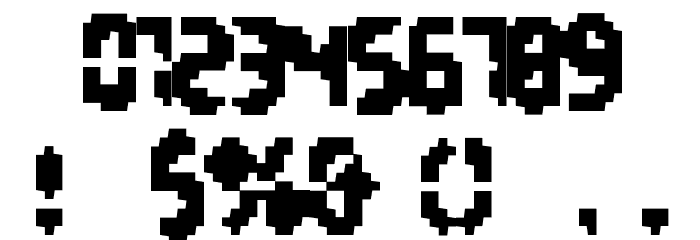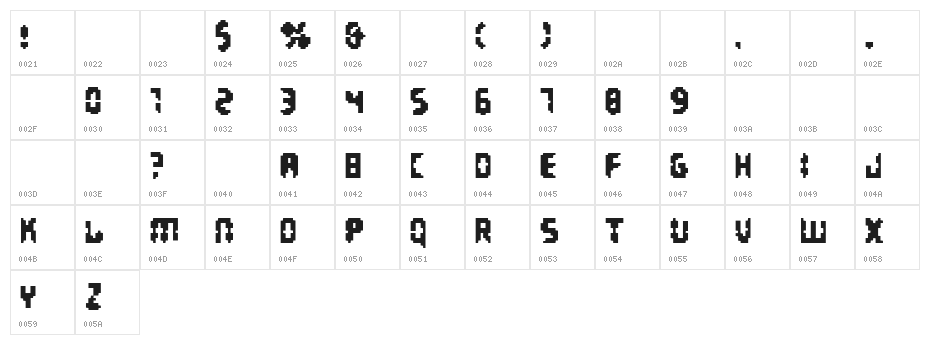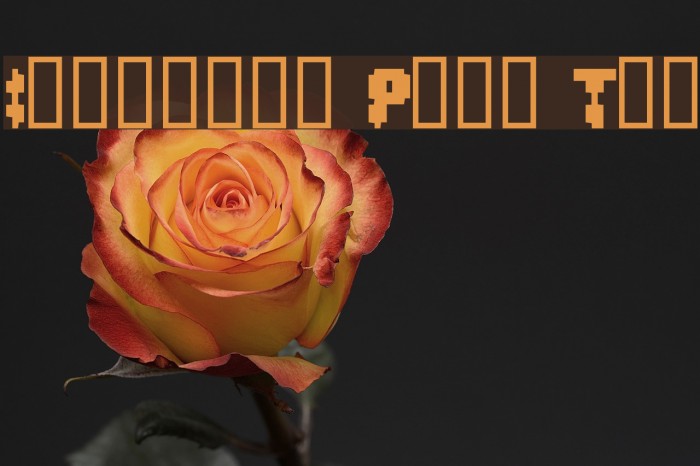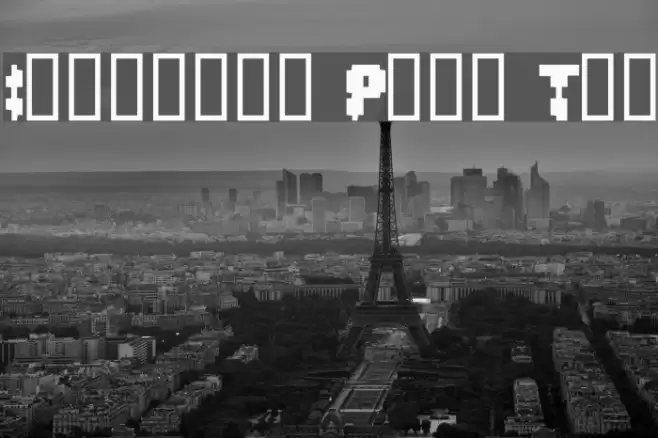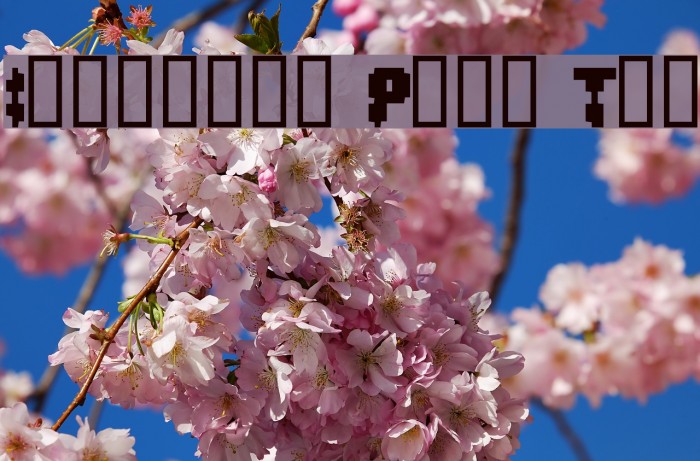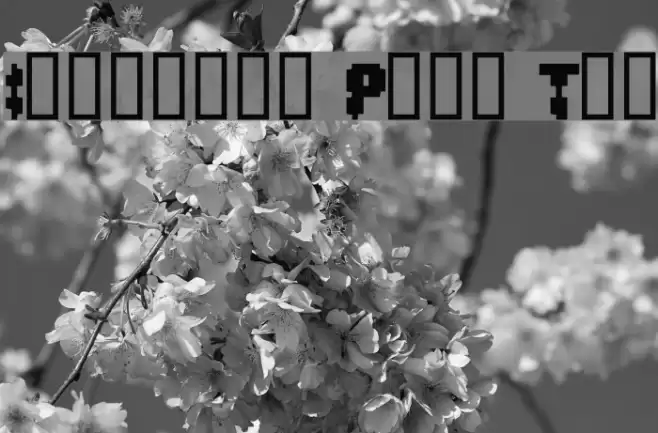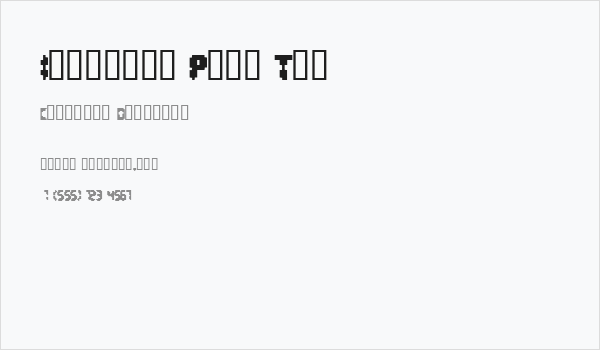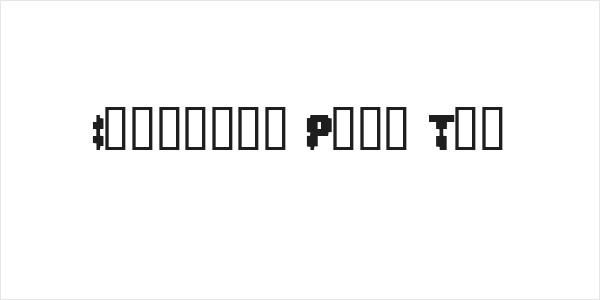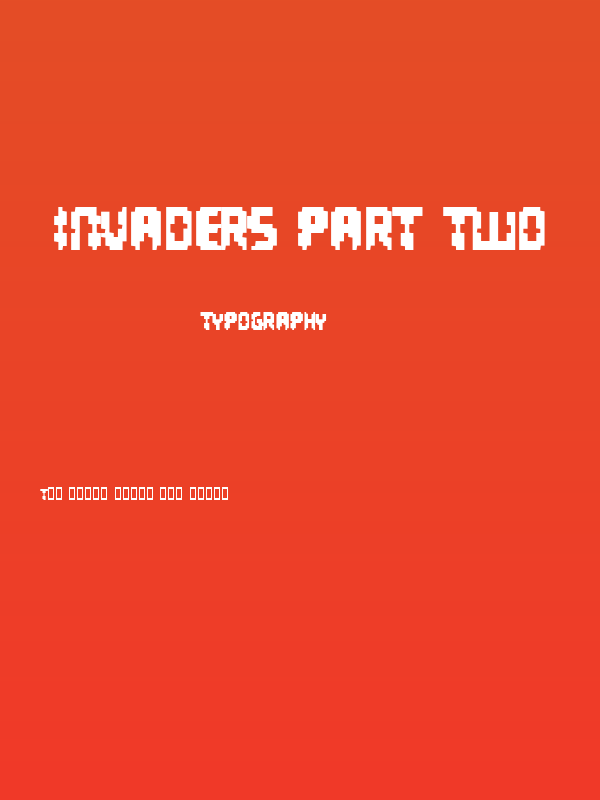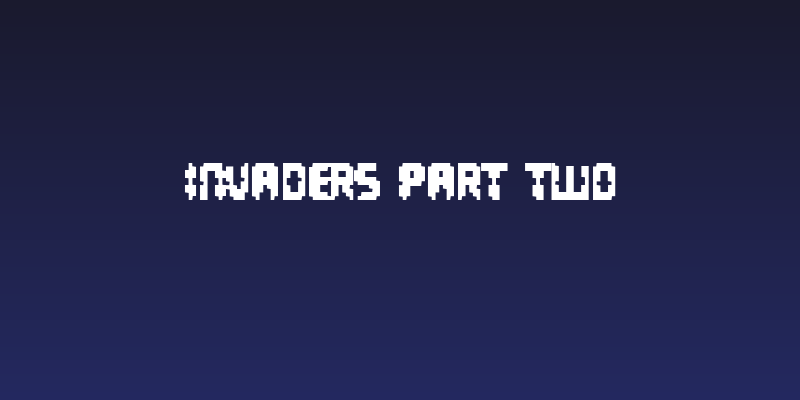
Invaders Part Two Font
Invaders Part Two Description
This font features a bold, pixelated style reminiscent of classic arcade games. The characters are blocky and geometric, with a strong emphasis on right angles and straight lines, creating a retro, digital aesthetic. The uppercase letters are uniform in height, while the numbers and special characters maintain the same pixelated theme. This design evokes a sense of nostalgia for early video game graphics, making it ideal for projects that aim to capture a vintage or tech-inspired look. The font's unique style is both playful and striking, suitable for creative and eye-catching designs.
| Proposed Projects | Ideal for video game graphics, retro-themed posters, digital art projects, and tech-inspired branding. |